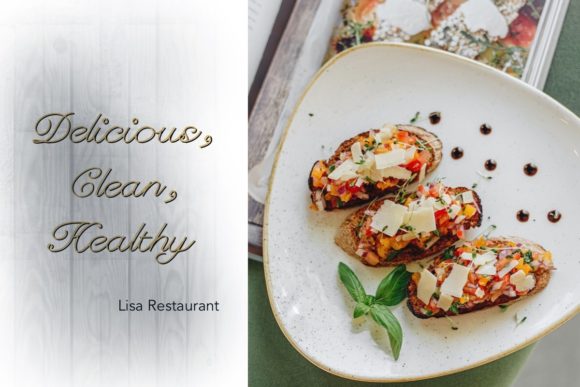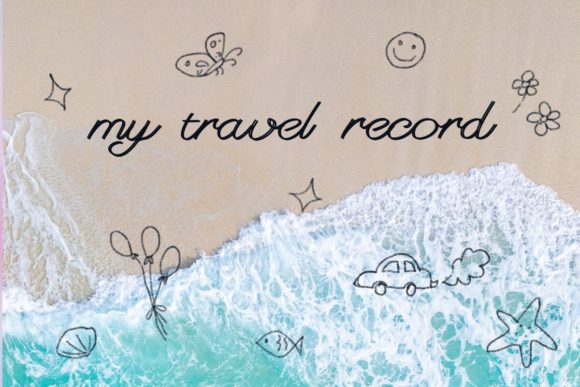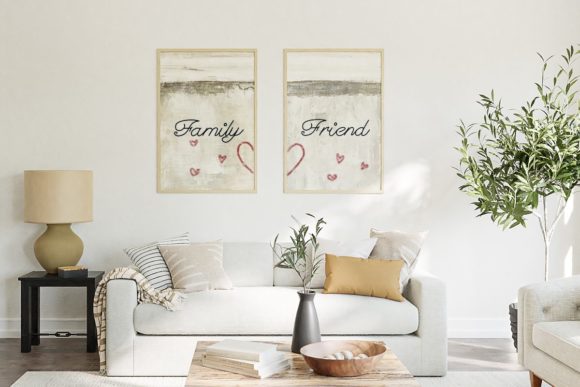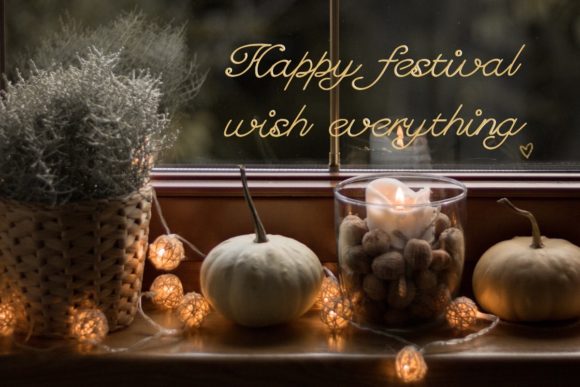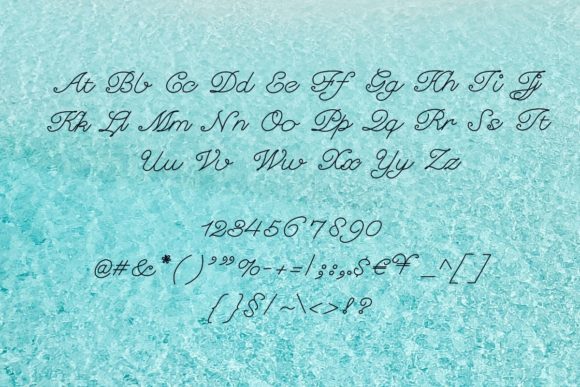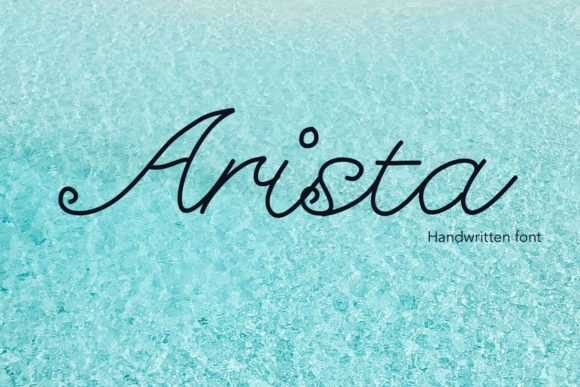
The Arista Font: A Creative Game-Changer for Designers and Crafters
I’ll never forget the time I was working on a children’s book design project, and I just couldn’t seem to find the perfect font. The client wanted something playful, yet elegant, and I was determined to deliver. That’s when I stumbled upon the Arista font, and it completely transformed my design. In this article, I’ll share my experience with Arista, its features, and how to make the most of this beautiful handwritten font.
An Honest Review of Arista Font
What I Love About Arista ✨
- 💕 The personal touch: Arista has a unique, handcrafted feel that adds a touch of warmth to any design.
- ✅ Versatility: This font is perfect for a wide range of projects, from logos and branding to wedding invitations and social media graphics.
- 🎨 Flexibility: Arista comes with a range of OpenType features, glyphs, and stylistic alternates, making it easy to customize and experiment with different looks.
- 👍 Readability: Despite its playful nature, Arista remains highly legible, even at smaller font sizes.
- ⚠️ Limited use in formal contexts: While Arista is amazing for creative projects, it might not be the best fit for formal or corporate designs.
- 🤔 Occasional kerning issues: As with any font, you might need to adjust kerning manually to achieve perfect spacing.
The Story Behind Arista Font
Arista was designed with the intention of creating a font that feels both personal and professional. The designer aimed to craft a script that would be elegant enough for wedding invitations and business cards, yet playful enough for children’s designs and social media graphics. With its unique blend of classic and modern elements, Arista has become a favorite among designers and crafters.
Q: Is Arista font suitable for body text?
A: While Arista is a beautiful font, it’s best suited for headlines, titles, and short paragraphs. For longer body text, a more traditional serif or sans-serif font might be more readable.